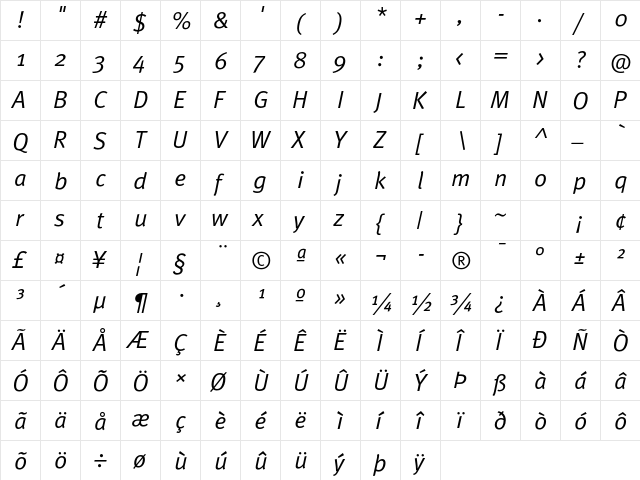
MetaPro-NormalItalic Regular
| Foundry | FSI Fonts und Software GmbH |
| Designer | Erik Spiekermann |
Design Context for MetaPro-NormalItalic Typeface
MetaPro-NormalItalic takes a measured approach to typography — its balanced proportions and neutral character make it a reliable workhorse for both digital and print work. The slanted form adds forward momentum and visual energy.
Pro Tip: Use MetaPro-NormalItalic for emphasis, pull quotes, and subheadings where its slanted energy can add rhythm to the layout.